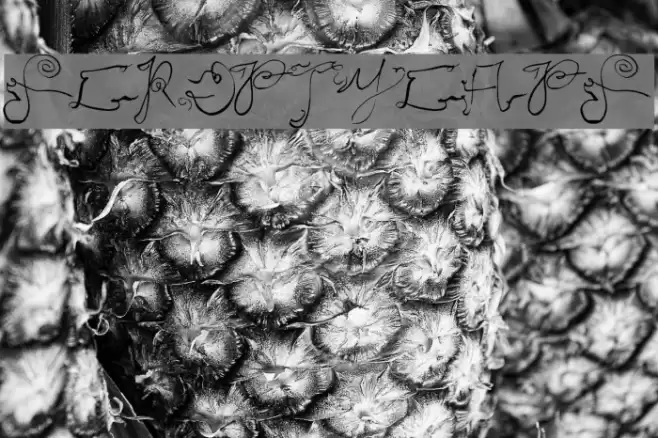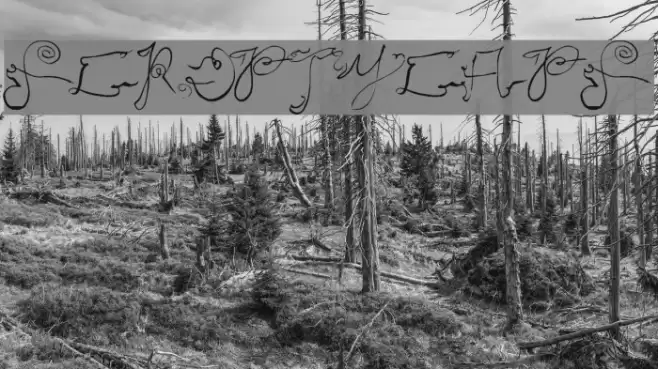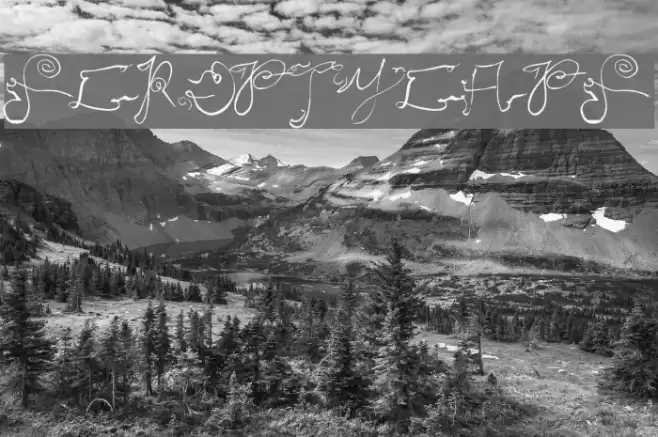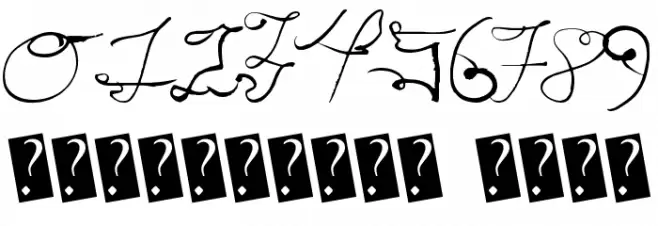
ScriptyCaps Font
ScriptyCaps Description
This font features an elaborate and decorative script style, characterized by its intricate swirls and flourishes. Each letter is uniquely crafted with ornate loops and curves, giving it a whimsical and artistic appearance. The uppercase letters are particularly elaborate, with extended strokes and embellishments that create a sense of elegance and sophistication. The lowercase letters maintain the decorative theme but are slightly more restrained, ensuring readability. The numbers and special characters are equally ornate, maintaining the overall aesthetic. This font is ideal for projects that require a touch of elegance and creativity.
An ornate and decorative script font with intricate swirls and flourishes from Uncategorized fonts.